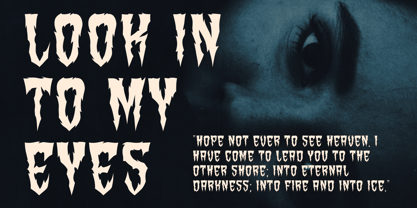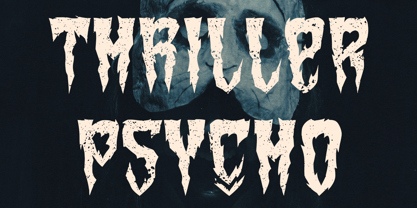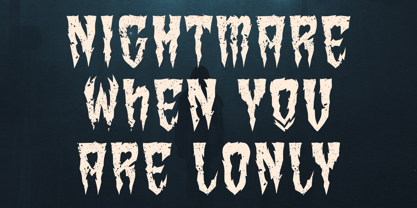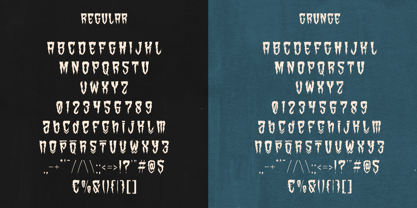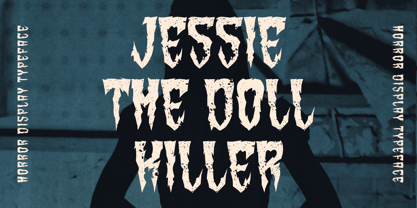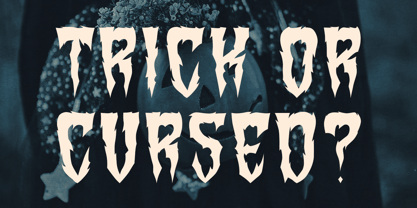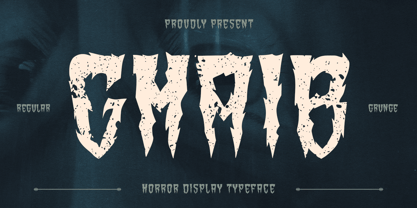
Ghaib
by Hatftype
The Ghaib Font Family was designed by Asep Rendi and published by Hatftype. Ghaib contains 2 styles and family package options. More about this family
From the shadows and whispers of mystery, GHAIB was born. A horror display font that brings a mystical, haunted, and eerie feel to every letter. Inspired by legends, shadows, and the unseen world, GHAIB is here to convey a captivating sense of tension and dark charm. The letterforms are sharp, jagged, and strong, as if carved from the rock of the spirit world. Every curve and angle of the letter expresses the anxiety, tension, and beauty of the hidden darkness. GHAIB is more than just a font; it's a visual experience that transports the viewer into a cold, silent, and mysterious atmosphere. This font comes in two distinct, equally strong and expressive styles: Regular – sharp and solid, perfect for creating bold and dramatic looks. Grunge – a version with a cracked and worn texture that creates a classic horror effect, as if the letters have long been trapped in time and dust. Both work perfectly for a variety of horror, gothic, Halloween, mystery, and dark fantasy design needs. Use GHAIB to create horror movie posters, mystery book covers, mystical-themed logos, Halloween event designs, or even dark-themed merchandise and apparel, and watch the eerie atmosphere set in at first glance. With the Ghaib Display Font, you don't just display text, you evoke a sense of atmosphere. Let these letters speak from the shadows, and make your designs come alive. Even in the dark.